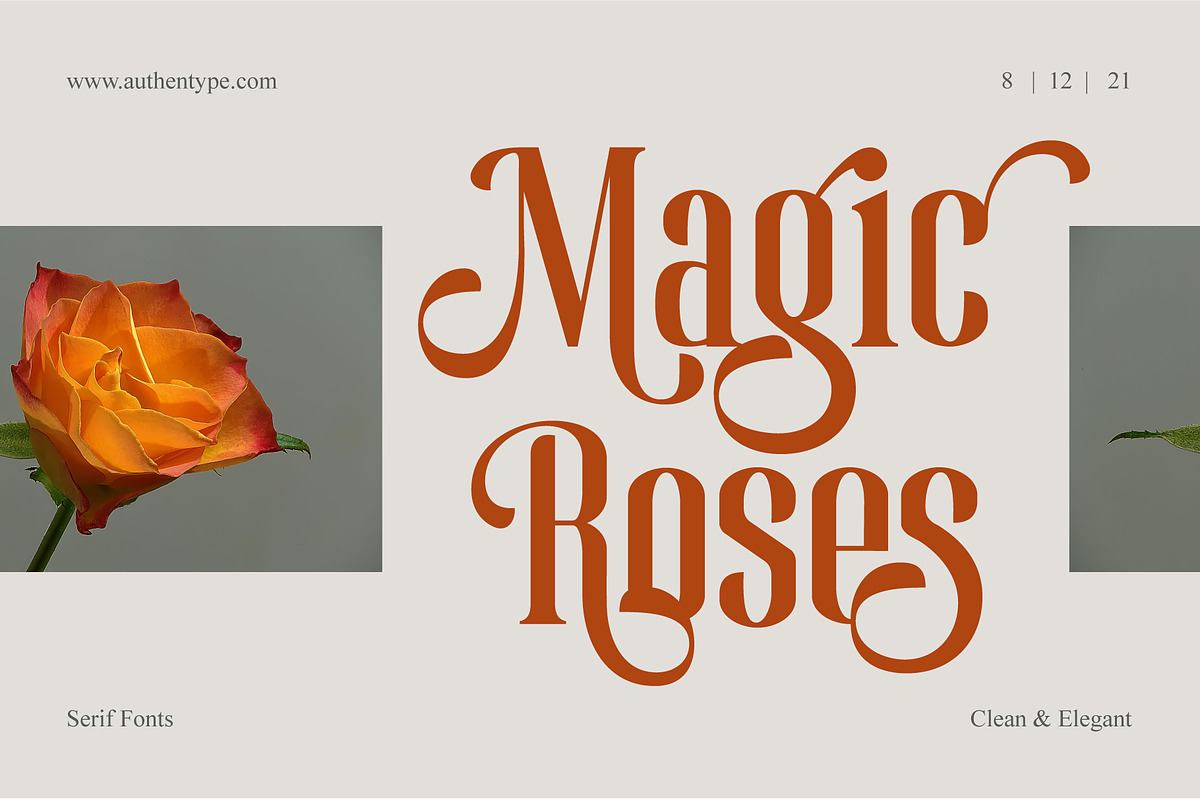
Elegant, refined, and timeless, Magic Roses - Serif Clean Elegant Font Free Download is a sophisticated typeface designed to bring a touch of luxury and class to any project. Perfect for high-end branding, editorial layouts, invitations, wedding stationery, and upscale packaging, this font combines clean lines with a refined serif structure, offering a perfect balance between modernity and tradition.
With its graceful letterforms and subtle sophistication, Magic Roses adds elegance and readability to any design, making it ideal for projects that require a professional, stylish touch. Whether you're creating a minimalist brand or a detailed layout, this font enhances your work with timeless charm.